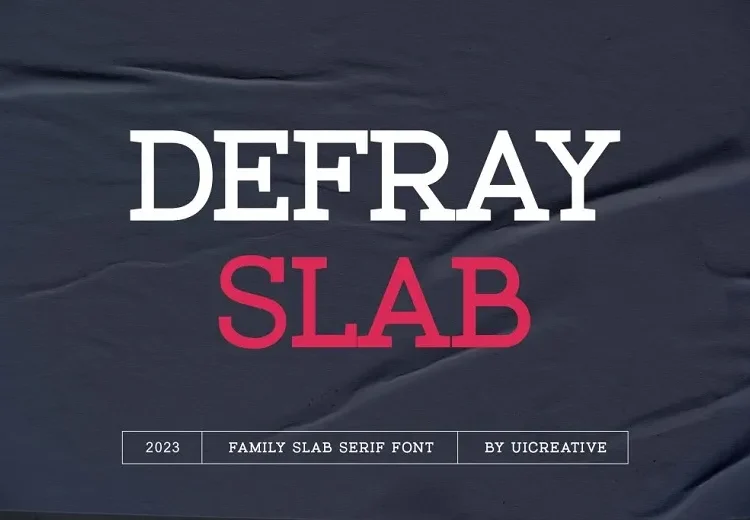
Defray Slab Font Family
Defray Slab is a modern slab serif font that exudes class, elegance, and style. Its distinctive design makes it a versatile choice for a variety of projects, including stationery, logos, wedding invitations, typography quotes, magazine or book covers, website headers, branding, and more. This adaptability ensures that Defray Slab font can enhance the visual appeal of any design, providing a sophisticated touch that resonates with your audience.
The strong and confident letterforms of Defray Slab create a bold statement while maintaining a refined look. Whether you’re designing promotional materials, elegant invitations, or impactful branding, this font is sure to elevate your creations and leave a lasting impression.
With its excellent legibility and stylish aesthetic, Defray Slab is perfect for both print and digital media. Its modern appeal makes it suitable for a wide range of themes, allowing it to seamlessly blend into any design project and cater to diverse audiences.